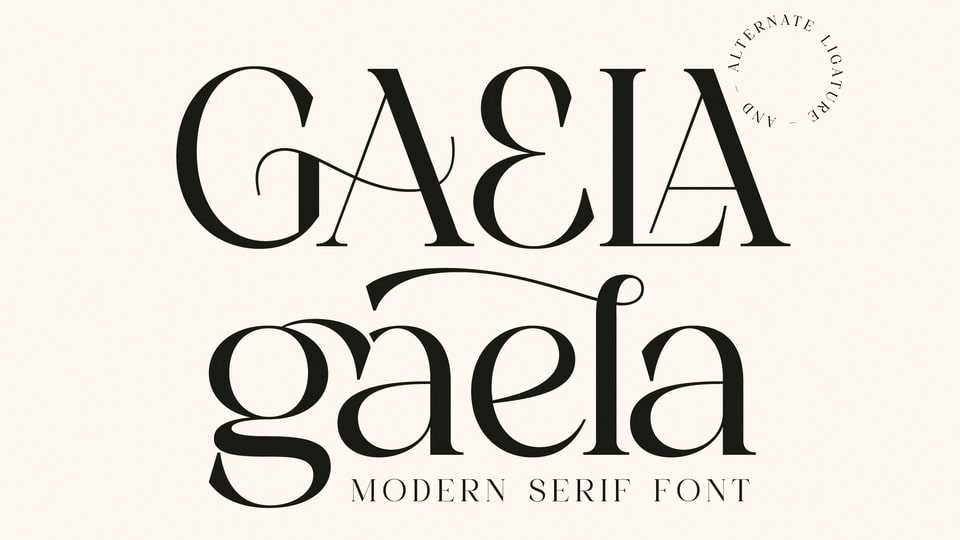
Download Gaela font, a modern and delicate serif typeface with a unique style and elegant look. Gaela font is perfect for an elegant and luxury logo, book or movie title design, fashion brand, magazine, clothes, lettering, quotes, and so much more.